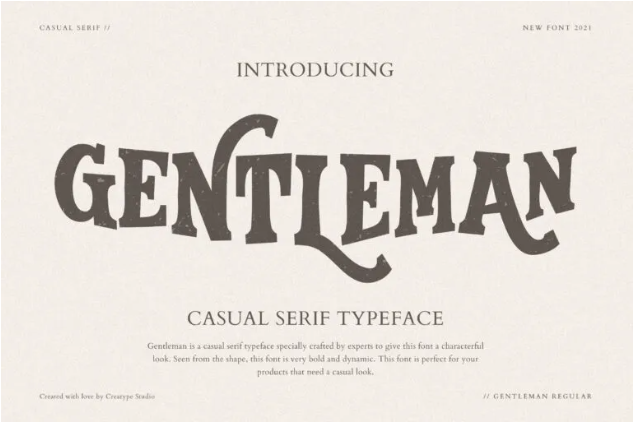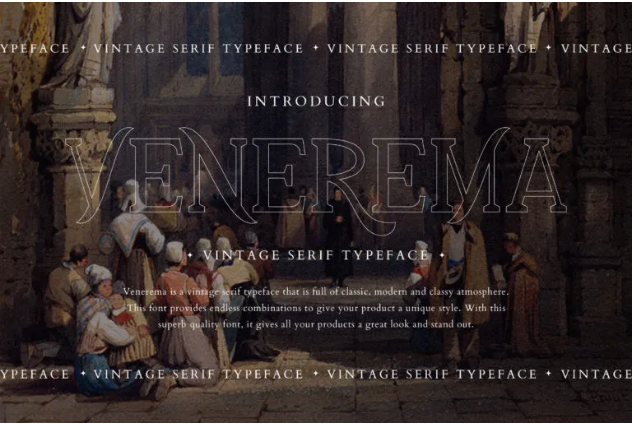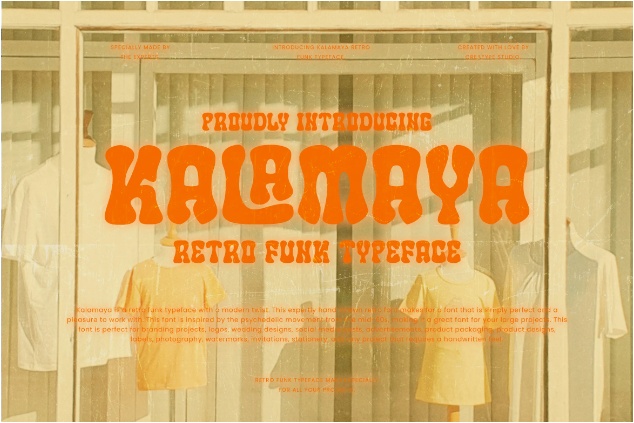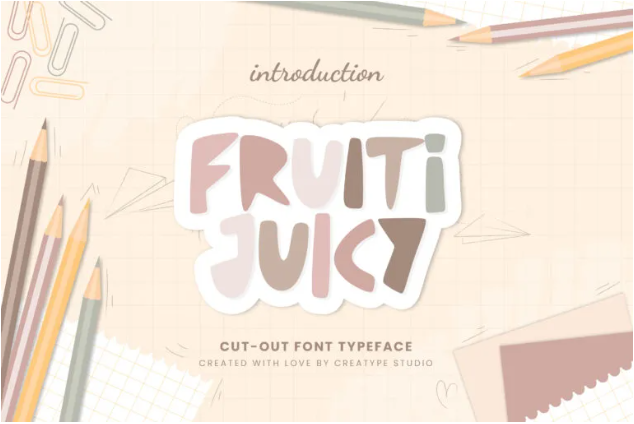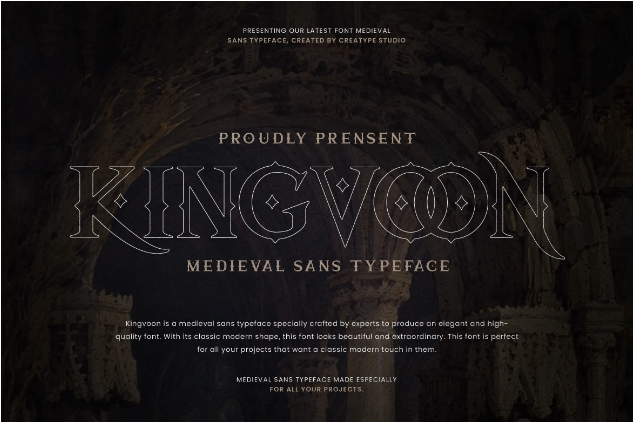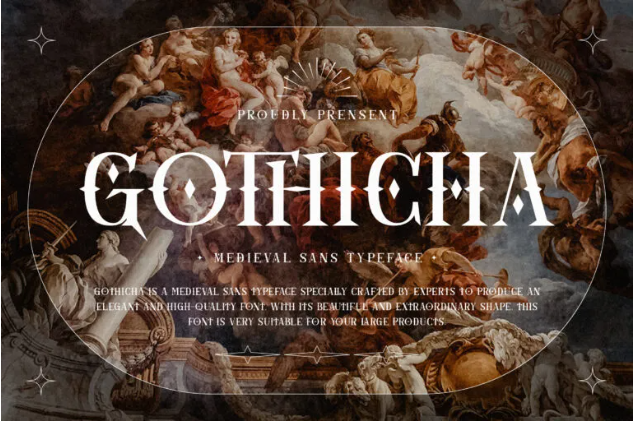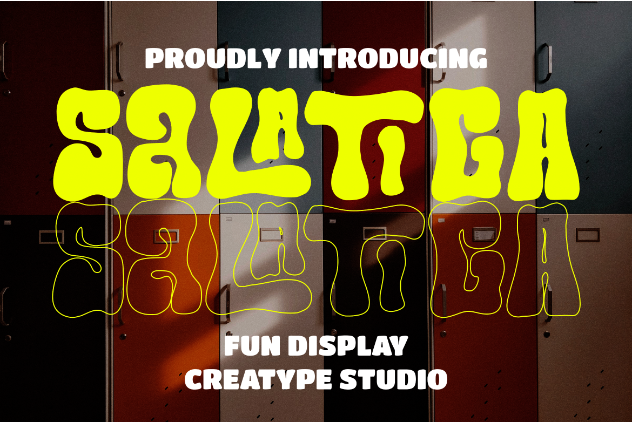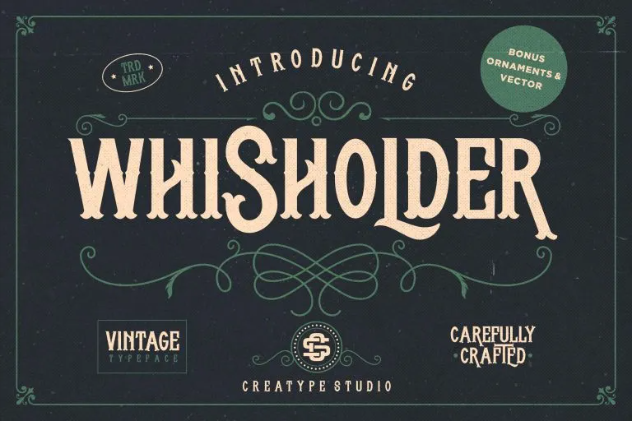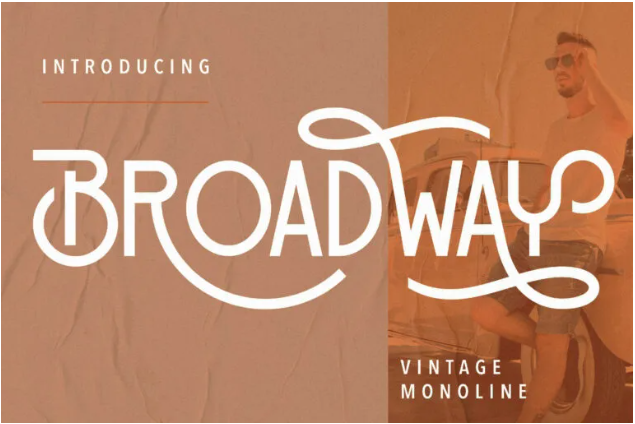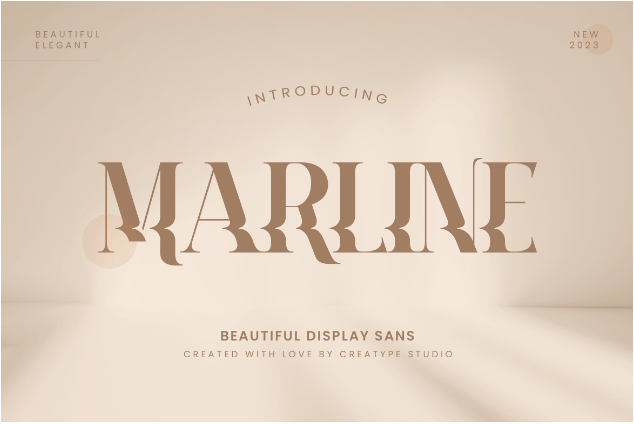
15+ Capital Letter Fonts to Achieve the Best Designs
In the realm of typography, the choice of capital letter fonts extends beyond mere aesthetics. Those big, bold letters add a dash of style to our words, set the vibe, tell a story, and shape how we experience written stuff. So, grab your pencil and see these bold, beautiful, wild majuscules.
With their commanding presence, capital letters serve as visual anchors that guide readers to your design. There are many styles of these fonts to complement the impact that you want. Check it out!
1. Gentleman
Gentleman Casual Serif Font
Starting gently with Gentleman. This casual serif font is so fun, each letter shows how comfortable they are on your design. Complete with their unique thick swashes.
2. Starshy
Starshy Brush Typeface
If you need a font that can be paired with other fonts, try Starshy. This street brush font is italicized by default, creating a sense of movement in the style.
3. Fruiti Juicy
Fruiti Juicy Cut-out Font
A cute recommendation for capital letter fonts is Fruiti Juicy. It is a cut-out typeface, the unique style only highlights the outline of the letters without any holes in them.
4. Kingvoon
Kingvoon Medieval Font
If you’re into the Medieval era, get Kingvoon font on your side! The intricate details and expressive forms are suitable for covering both capital letters and tattoo fonts
5. Gothicha
Gothica Medieval Typeface
Gothicha is also a medieval typeface in the sans serif category. This one is the perfect choice if you’re looking for a dark yet beautiful capital letter fonts. A little gothic in your medieval design is always eye-catching.
6. Salatiga
Salatiga Fun Display Font
Let me tell you about Salatiga, here. It is a fun display font created solely to captivate everyone. The unique and bold characters stand out among other fonts with a modern and street style.
7. Whisholder
Whisholder Vintage Font
A vintage font, you ask? Look at the Whisholder typeface. With the same style in the uppercase and lowercase letters, you can seamlessly mix both; just like how the capital “S” is being the center in the poster above.
8. Broadway
Broadway Vintage Typeface
If you want a vintage yet artsy font, then you need to meet Broadway. With its monoline and swash-rich character, the font exudes freedom and creativity. Containing only capital letter fonts, this one has different glyphs for lower and uppercase letters.
9. Bentley
Bentley Monoline Vintage Font
Introducing Bentley vintage typeface that combines vintage and classy styles! The unique approach to changing the traditional letter strokes makes this font untamed, but the rounded edges create a familiar vibe.
10. Moores
Moores Luxurious Serif Font
This one is among the most beautiful capital letter fonts, meet Moores Luxurious Serif font! With a tiny serif, Moores has an elegant, and modern uppercase character look. Considering the amount of alternates and ligatures this pack has, you’ll get a pretty big option for your design.
11. Vantage
Vantage Retro Funk Font
Looking for a bold and unique font? Take Vantage Funk Retro typeface as your vantage font! Unlike any other class for a typeface, this cool, blocky, and blobby font has its own character, which produces funk vibes, make nothing can compare to it.
12. Marline
Marline Beautiful Display Font
Claims to be a beautiful display font, Marline Display typeface is certainly cut out for it. The eccentric swirl in the middle of capital letters’ lines’ existence will bring you to the beach and transform everything you write into a romantic sunset.
13. Venerema
Verenema Vintage Font
With all the unique capital letter fonts so far, let’s get to know the lowkey one. Meet Venerema, this vintage serif font easily becomes your go-to capital font. The straight-up version is already pretty and the alternates are no less than beautiful.
14. Jacksonville
Jacksonville Rusty Handbrush Font
We need more brush styles in this list, so here is the Jacksonville Handbrush font. Three words describe this font, it’s strong, fierce, and rusty. The sure strokes in each letter create a carefree yet assertive attribute of the font, perfect for you who aim for such a theme.
15. Kalamaya
Kalamaya Retro Funk Typeface
Another rare class of retro funk is the Kalamaya. This fiery font is rather tame if you use the “lowercase” glyphs, but the real one is in the uppercase section. Complete with the alternates and ligatures, your design will guaranteed to be a head-turner.
16. Hypebeast
Hypebeast Vintage Font